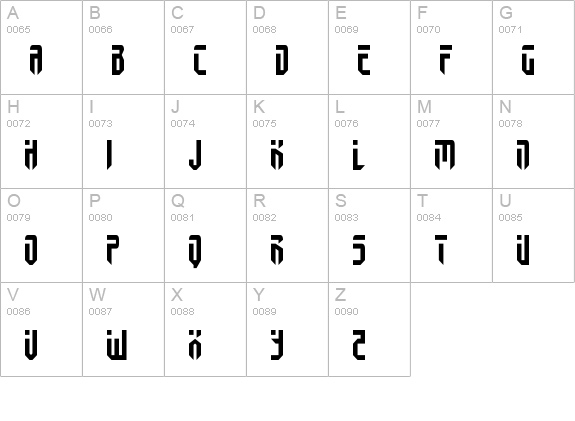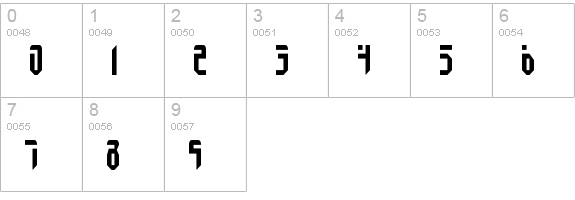
Fedyral Font Details
Fedyral font is a modern and sleek typeface that exudes sophistication and elegance. Its clean lines and balanced proportions make it perfect for a wide range of design projects, from branding to editorial design. The Fedyral font strikes the perfect balance between professionalism and creativity, making it a versatile choice for both digital and print applications. What sets Fedyral font apart is not only its timeless aesthetic appeal but also its affordability - it is available for free download at FontsMarket.com. This means that you can elevate your design projects without breaking the bank. Whether you are a seasoned designer looking for a fresh new font or a beginner looking to experiment with typography, Fedyral font is the perfect choice. Download it today and unleash your creativity with this stunning typeface.